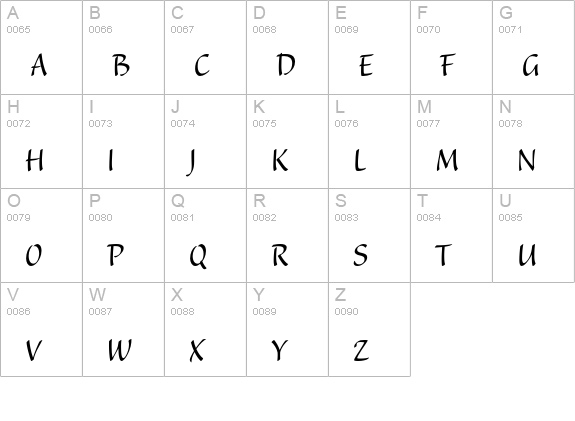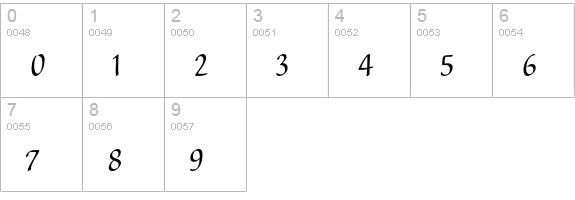
Balzano Std is a modern and elegant typeface that exudes sophistication and style. With its clean lines and sleek curves, this font is perfect for a wide range of design projects, from branding and advertising to packaging and editorial. Balzano Std is versatile and easy to read, making it a great choice for both print and digital applications. And the best part? Balzano Std is completely free to download at FontsMarket.com. So go ahead and add this beautiful font to your collection today and take your designs to the next level!